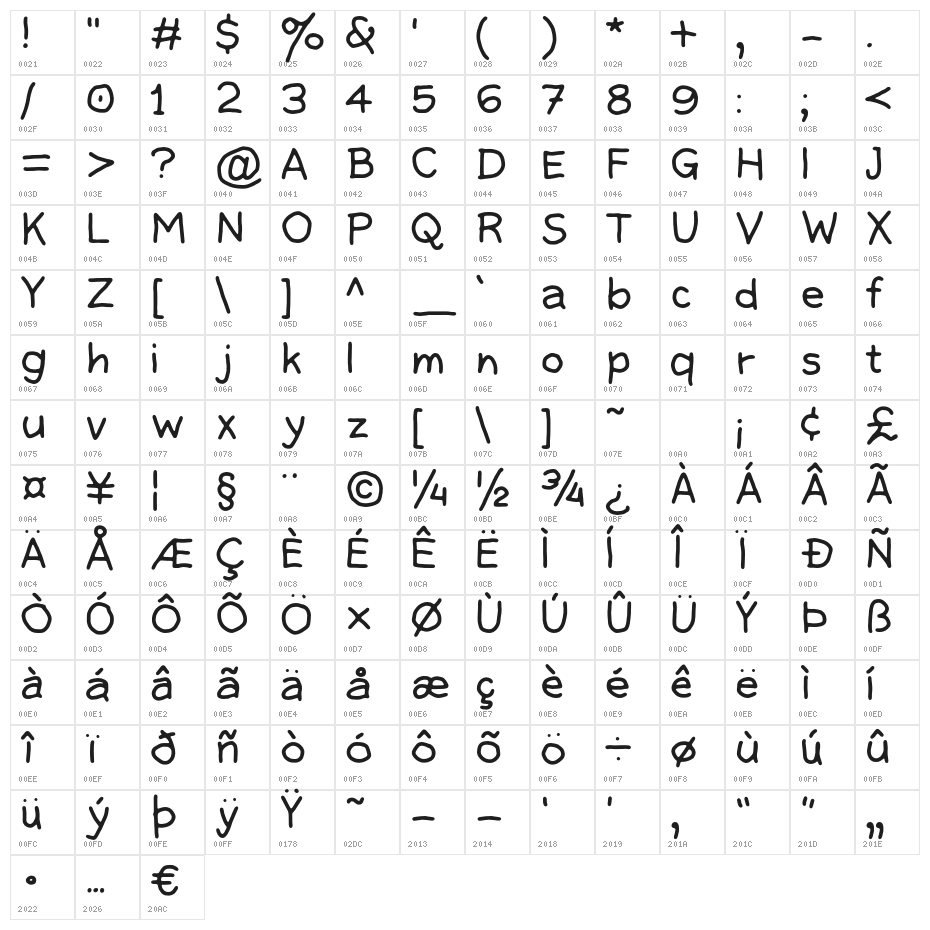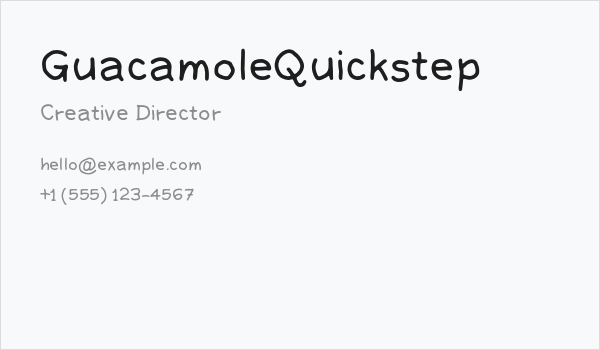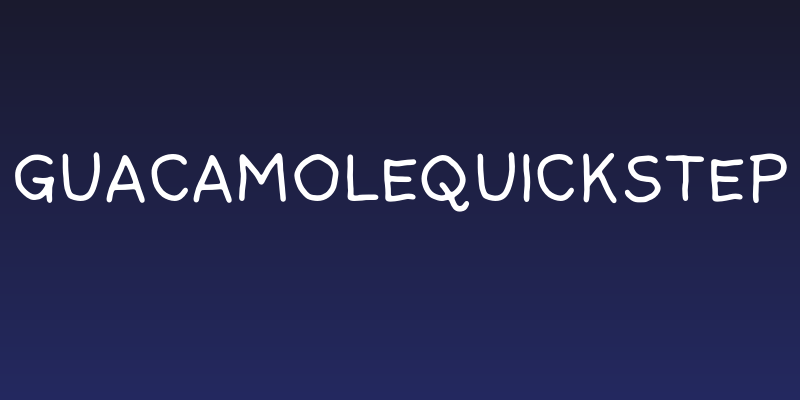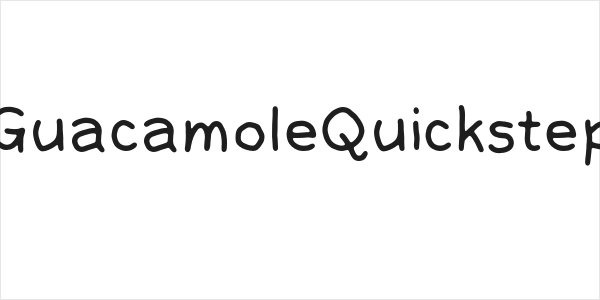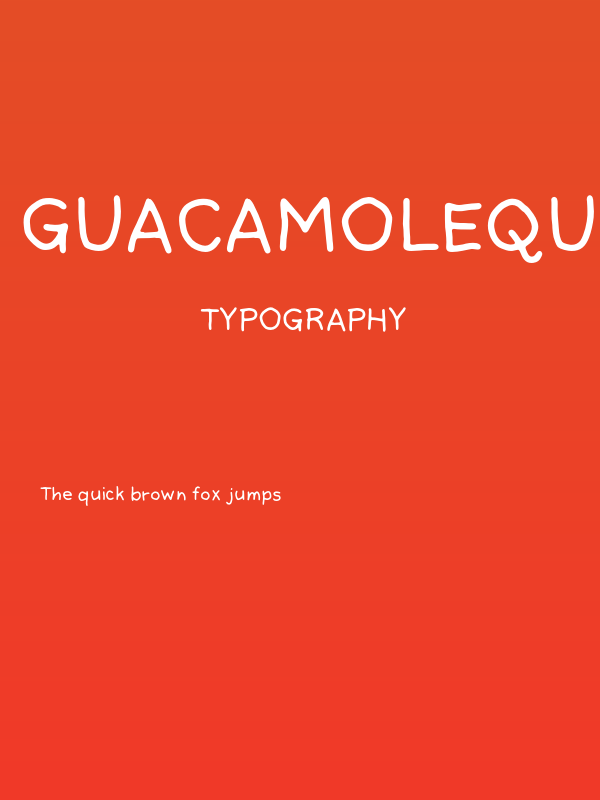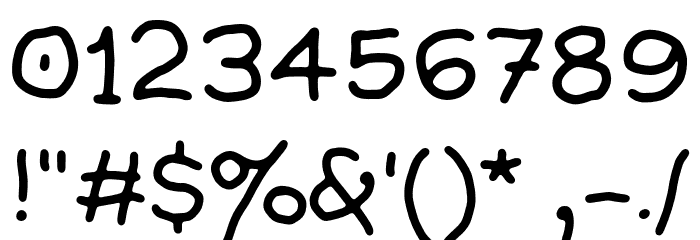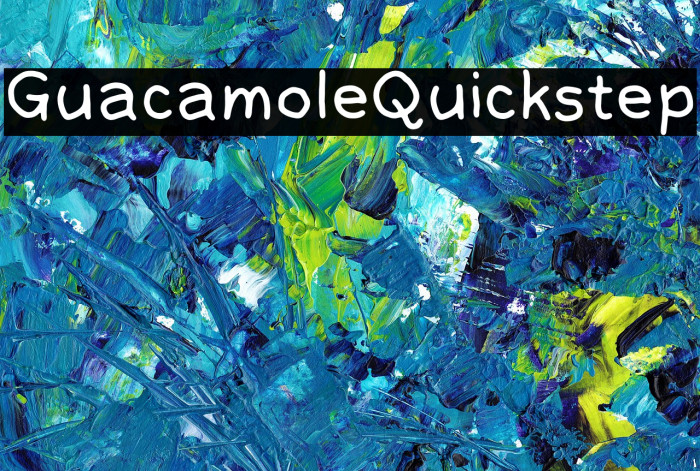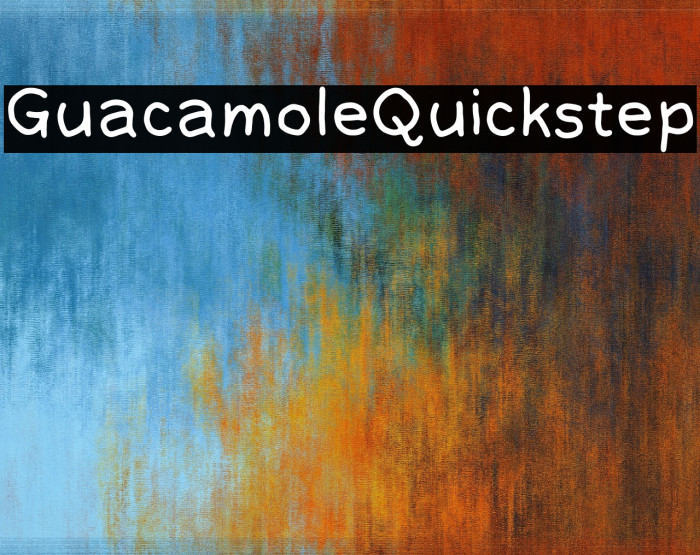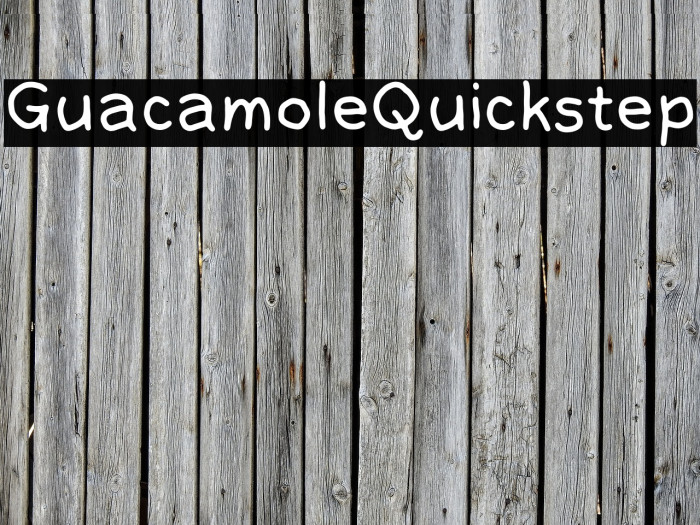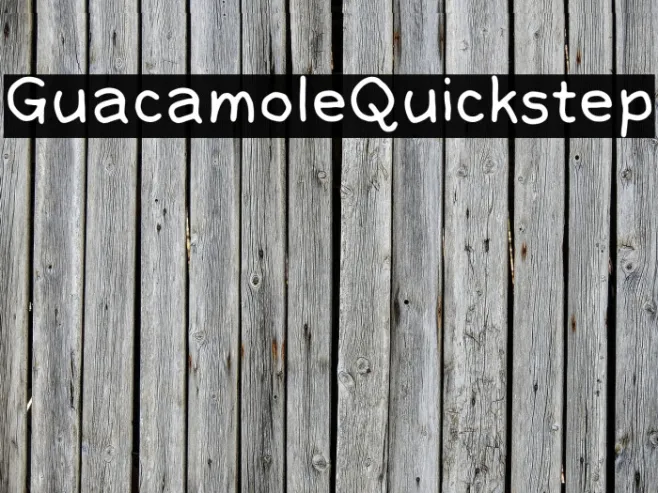
GuacamoleQuickstep Font
GuacamoleQuickstep Description
This font features a playful and informal handwritten style, characterized by its rounded and slightly irregular letterforms. The strokes are consistent in thickness, giving it a uniform appearance while maintaining a casual and friendly vibe. The characters are well-spaced, ensuring readability, and the overall look is approachable and whimsical. It's suitable for projects that require a personal touch, such as invitations, greeting cards, and children's books. The font's unique style makes it stand out, adding a touch of personality to any design.
| Proposed Projects | Ideal for invitations, greeting cards, children's books, and playful branding. |